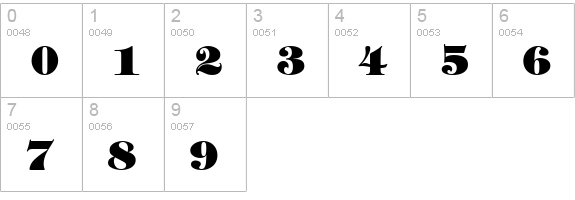
Sophisticate Black SSi Extra Bold is a maximum-weight, dramatic variant in the Sophisticate typeface family \xE2\x80\x94 well suited to maximum-impact headlines, posters, and packaging.
Introducing the stunning and refined Sophisticate Black SSi Extra Bold font, a true embodiment of elegance and style. This font is perfect for those who seek a touch of sophistication in their designs, whether it be for logos, headings, or any other creative project. With its bold and powerful strokes, Sophisticate Black SSi Extra Bold commands attention and leaves a lasting impression. Its sleek and modern design exudes confidence and professionalism, making it a popular choice among designers and typographers alike. But what truly sets this font apart is its versatility and adaptability. Whether used in print or digital media, Sophisticate Black SSi Extra Bold effortlessly elevates any design to new heights. Its timeless appeal ensures that it remains relevant and captivating for years to come. And the best part? Sophisticate Black SSi Extra Bold is freely available to download at FontsMarket.com. This means that you can easily incorporate this exquisite font into your projects without any hassle or cost. It's the perfect opportunity to enhance your creative endeavors, without compromising on quality or budget. So, go ahead and embrace the sophistication and elegance of Sophisticate Black SSi Extra Bold. Let this font elevate your designs, leaving a lasting impression on your audience. Download it for free today at FontsMarket.com and unlock a world of possibilities for your creative ventures.